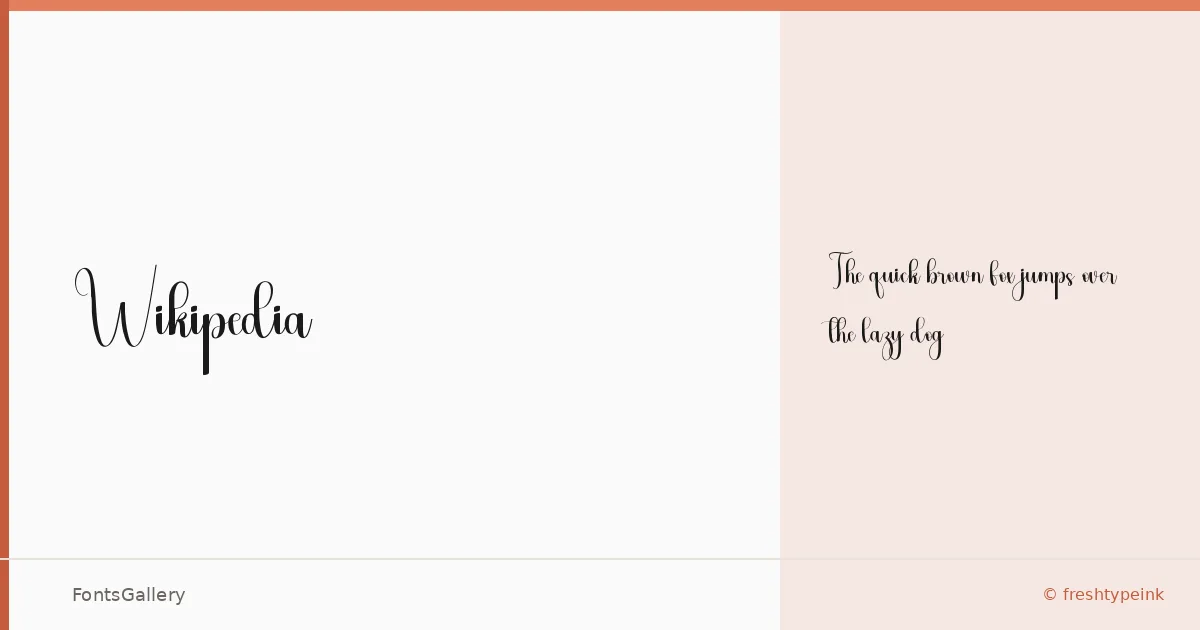
About Wikipedia Font
There is a certain unhurried grace to this script — the kind of pen-pulled rhythm that leans into romance without tipping into excess. Designed by freshtypeink, it arrives as a single Regular weight, drawn with the classic elegance you associate with formal penmanship traditions rendered through a contemporary hand.
The script falls squarely into classic, luxury territory: flowing joins, considered letterforms, and a mood that reads as both romantic and ceremonial. With partial Latin coverage and a single Regular cut, it is a focused tool rather than a workhorse system — built to do one thing with care. Available in TTF, OTF, and WOFF formats, it moves readily between desktop layout work and web use, and its installable embedding permission means it can travel with documents.
The natural home for this script is wherever occasion demands weight and warmth — wedding invitations, certificates, greeting cards, and branding marks where a logo needs to feel handcrafted and considered. The listed pairings suggest a wide range of supporting choices: the editorial softness of Canela, the clean neutrality of Helvetica, the structured editorial character of ABC Arizona, the humanist readability of Asap, or the classical authority of Adobe Caslon Pro, each offering a different tonal counterpoint to the script's expressive strokes.